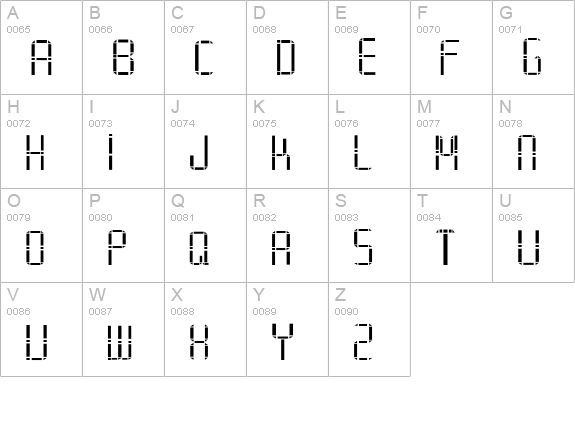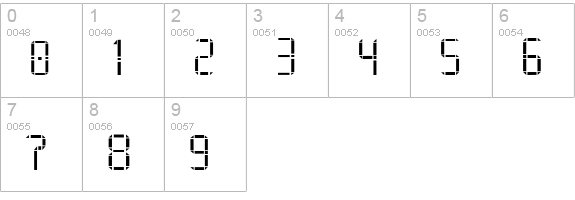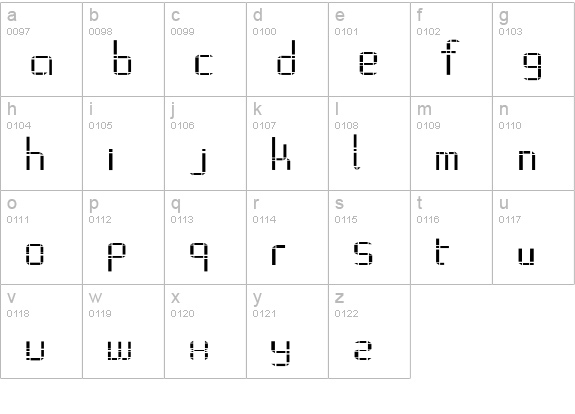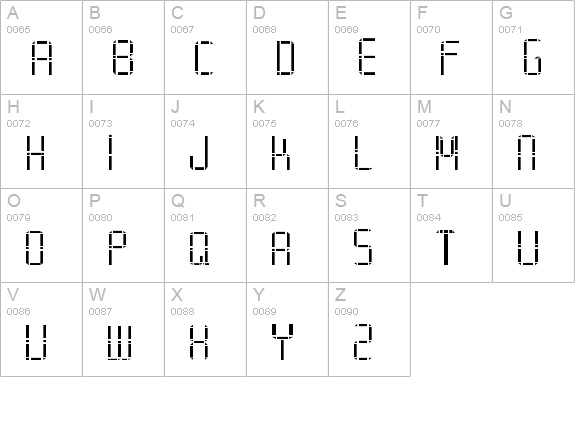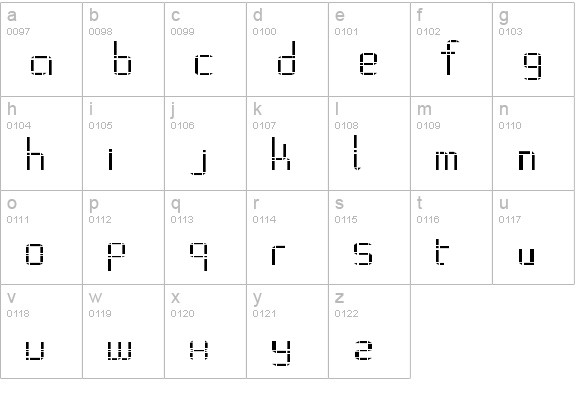
Alphabet_2 Font Details
Alphabet_2 font is a stylish and modern typeface that is perfect for adding a touch of elegance to your designs. With its sleek lines and clean shapes, this font exudes a sense of sophistication and professionalism. Whether you are designing a logo, creating branding materials, or working on a creative project, Alphabet_2 font is sure to make a bold statement. The best part? Alphabet_2 font is completely free to download at FontsMarket.com. This means that you can easily access this versatile font and use it in your projects without any cost. Don't miss out on the opportunity to elevate your designs with the sleek and timeless appeal of Alphabet_2 font. Download it today and let your creativity soar!